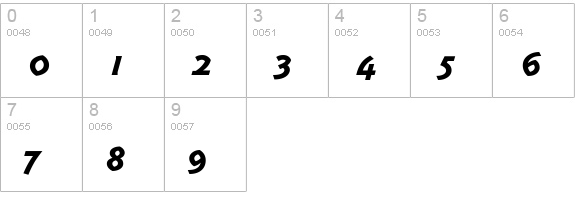
TriplexItalicExtrabold is a sensational font that effortlessly combines elegance and boldness. Its distinct and eye-catching design is perfect for adding a touch of sophistication and modernity to any project. With its italicized slant and extra bold weight, this font exudes a sense of dynamism and confidence that is sure to captivate your audience. The intricate and graceful curves of TriplexItalicExtrabold lend themselves beautifully to a wide range of design applications, from branding materials and advertising campaigns to website headers and social media graphics. Its versatility allows it to effortlessly adapt to any creative vision, making it a must-have for designers, marketers, and artists alike. But what truly sets TriplexItalicExtrabold apart is its availability. Unlike many other fonts on the market, TriplexItalicExtrabold is freely available to download at FontsMarket.com. This means that you can harness the power of this remarkable font without any financial limitations, providing you with the freedom to explore your creativity without constraints. Whether you are working on a personal project or a professional endeavor, TriplexItalicExtrabold is the perfect choice to elevate your designs to new heights. Its bold and stylish presence will leave a lasting impression, ensuring that your message is delivered with impact and flair. So why wait? Download TriplexItalicExtrabold for free at FontsMarket.com and unlock a world of possibilities for your next design project. Embrace the freedom to create stunning visuals that demand attention and stand out from the crowd. Let TriplexItalicExtrabold be your secret weapon in the pursuit of excellence.